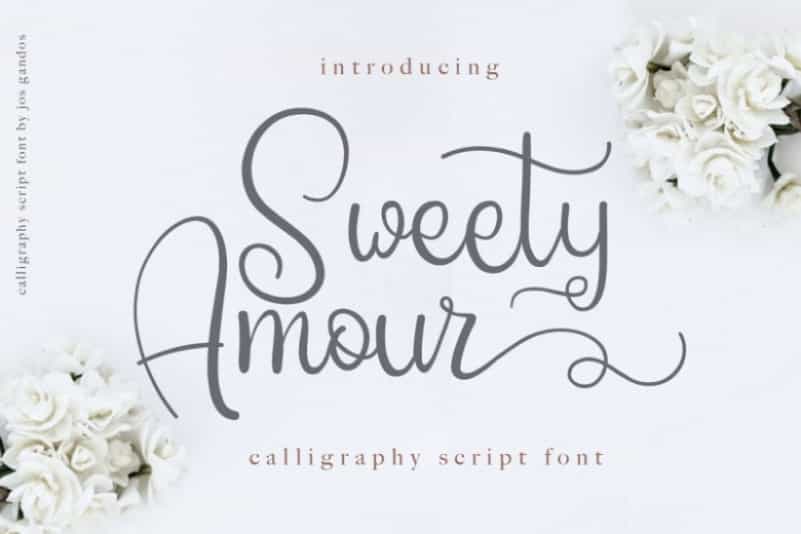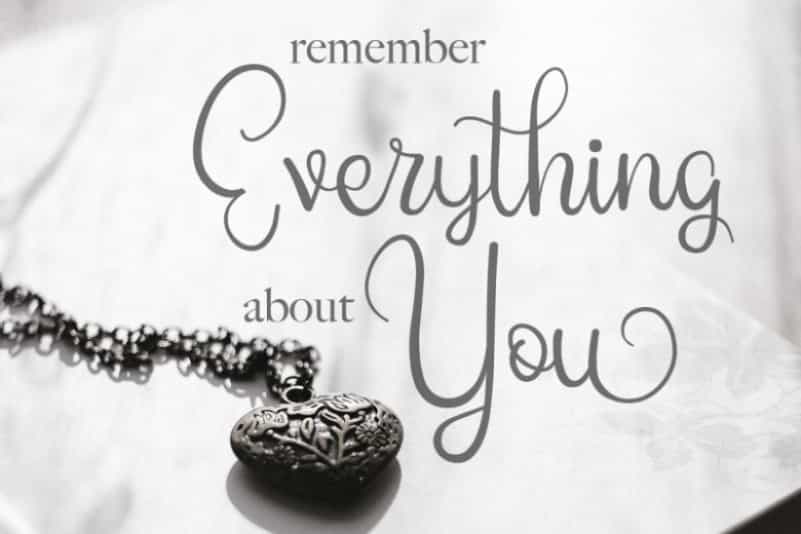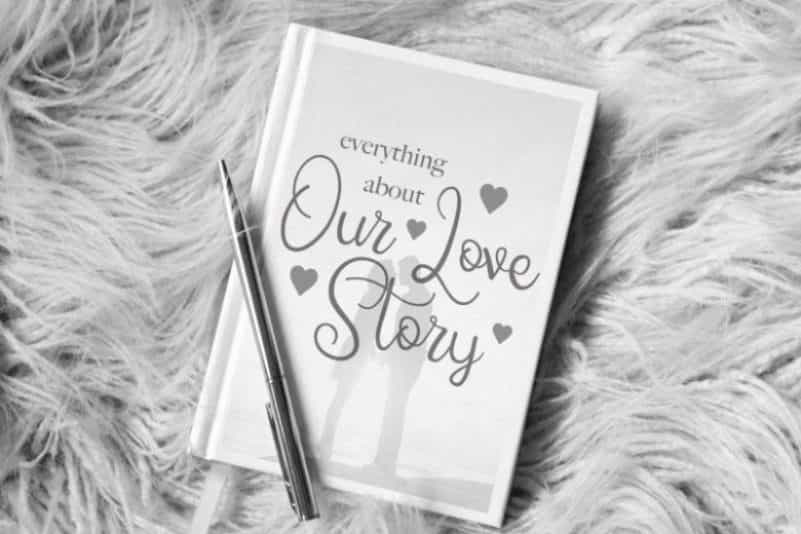
Introducing Sweety Amour Font. Sweety Amour Script Font is a contemporary calligraphy font with the elegant and the romantic style. It is ideal for branding, wedding, photography and any other design that has something to do with feminine style.